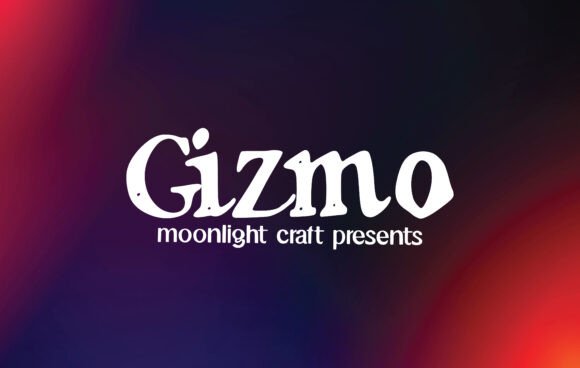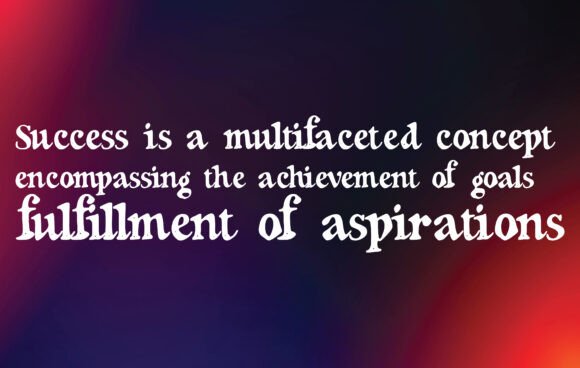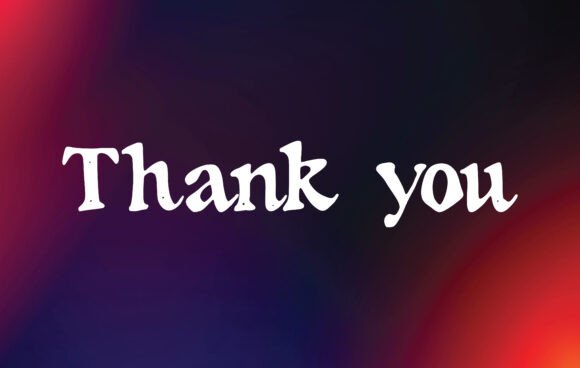
Gizmo Font: A Unique Handwritten Font for Eye-Catching Logo Design
About the Gizmo Font
The Gizmo Font offers a perfect balance of form and function for your design needs. Gizmo is a lovely and beautiful handwritten font.This font has the potential to take your creative ideas to the highest level.It is the best choice for creating eye catching logos, branding and quotes.
Its casual, slightly quirky style makes Gizmo ideal for headlines, short text blocks on posters or packaging, and social media graphics. It lends itself well to branding projects that need a touch of handcrafted charm, particularly for artisan products, boutiques, or cafes. However, its handwritten nature makes it less suitable for body text or lengthy paragraphs; readability suffers at smaller sizes.
For optimal visual balance, pair Gizmo with a clean sans-serif like Open Sans for a modern contrast, or a classic serif such as Garamond for a more traditional feel. A geometric sans-serif could also work well, providing a structured counterpoint to Gizmo’s organic forms.
Gizmo’s overall personality is friendly and approachable yet slightly unconventional. It projects a sense of warmth and creativity, making it a good choice for brands that wish to convey authenticity and personality.
Gizmo Font Usage Examples
Gizmo Font Example